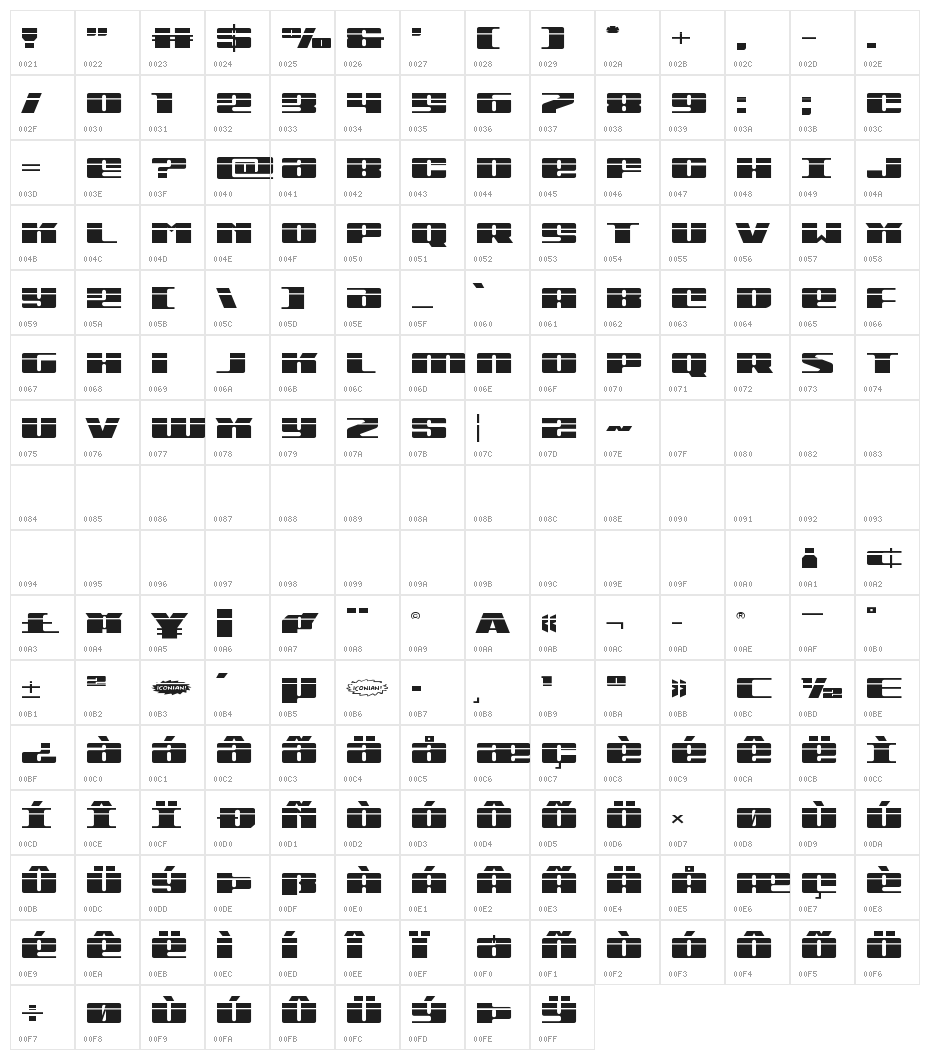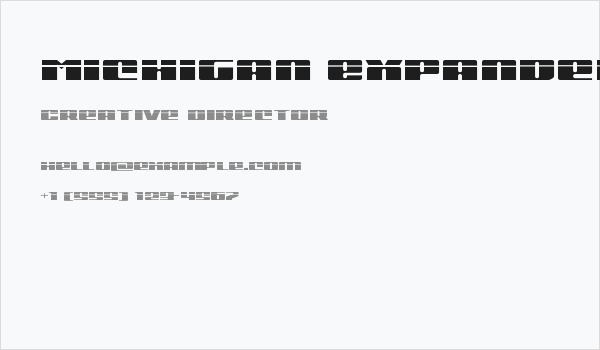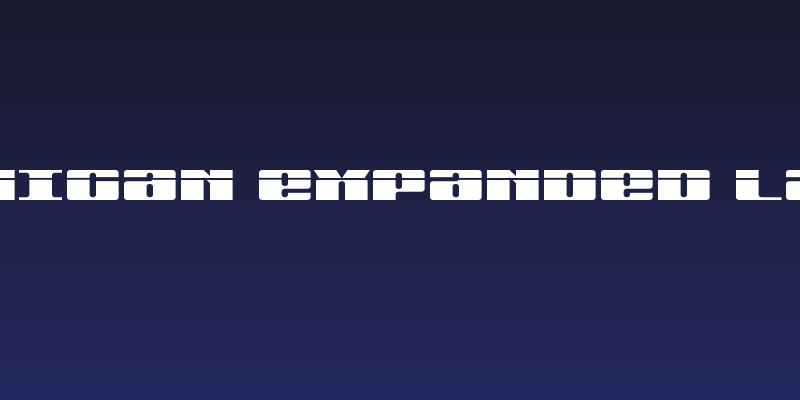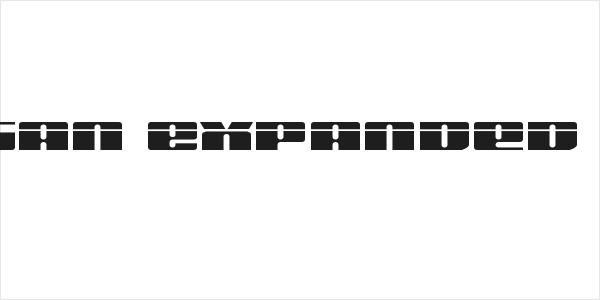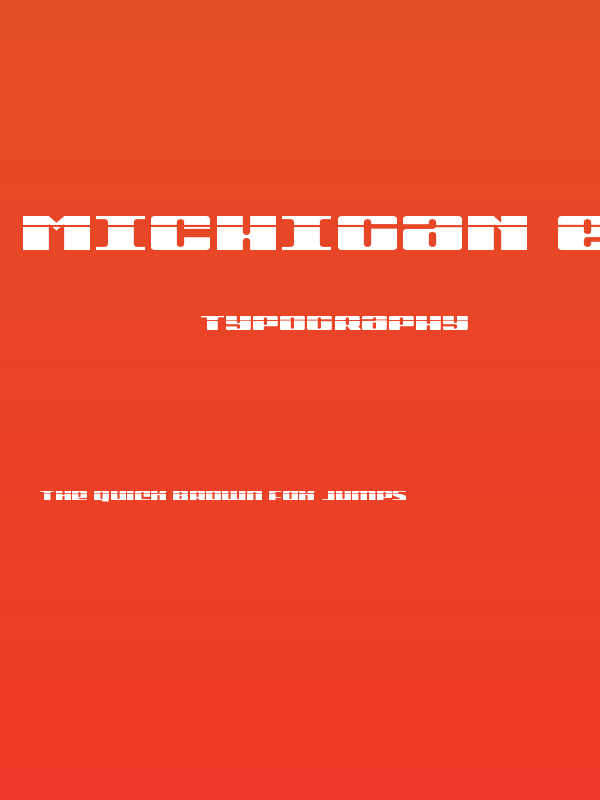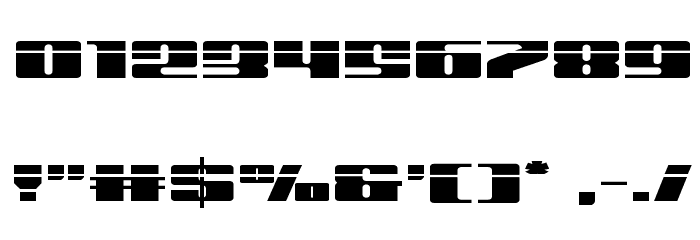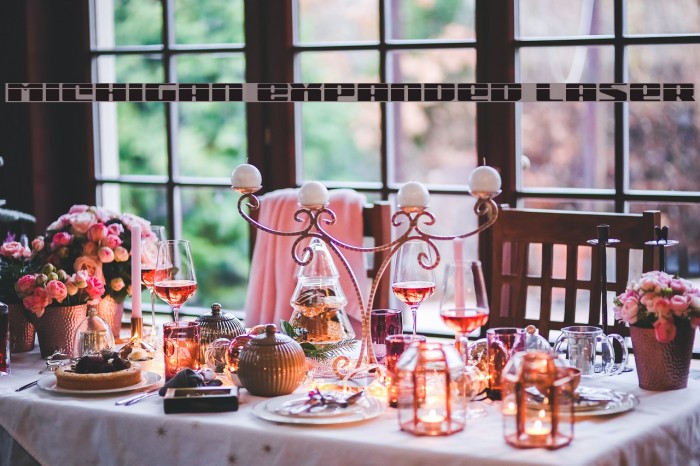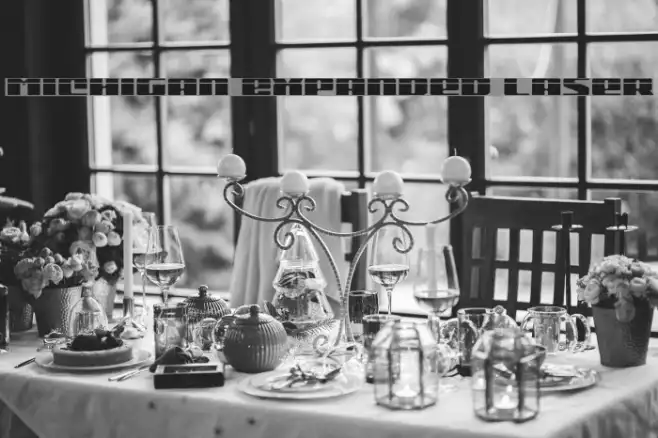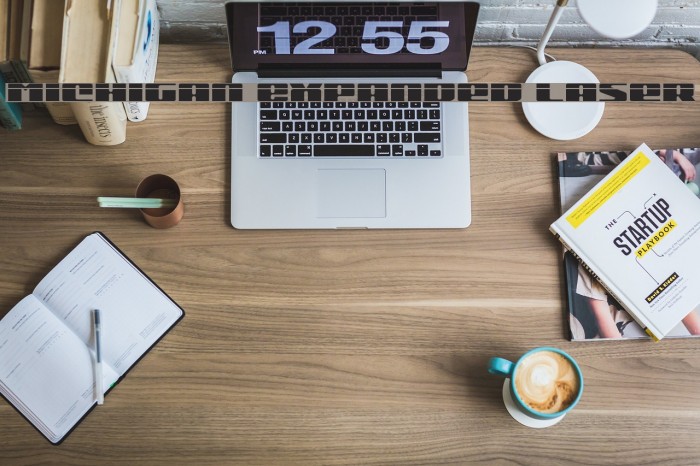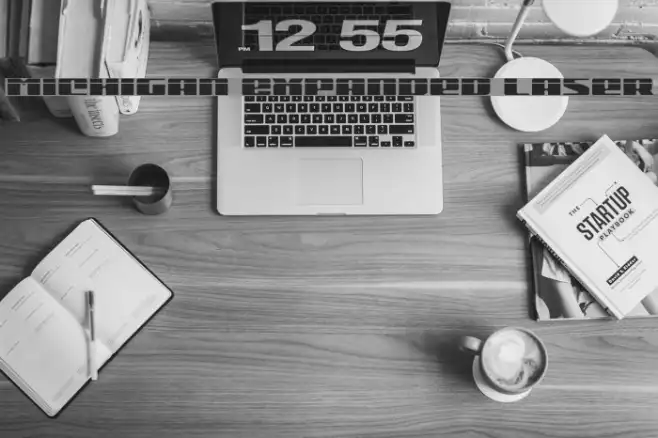
Michigan Expanded Laser Font
Michigan Expanded Laser Description
This font features a bold, futuristic design with a distinctly geometric and angular appearance. The characters are constructed with solid, block-like forms, incorporating sharp edges and a high degree of symmetry. The use of negative space within the letters adds a unique visual interest, creating a sense of movement and dynamism. The font's expanded width and uniform stroke weight contribute to its commanding presence, making it ideal for attention-grabbing applications. Its modern aesthetic is complemented by a consistent character height, ensuring readability even at smaller sizes. The font's design is versatile, suitable for a range of creative projects where a strong, impactful typeface is desired.
| Proposed Projects | Ideal for use in technology branding, sci-fi themed designs, video game interfaces, and modern advertising campaigns. |